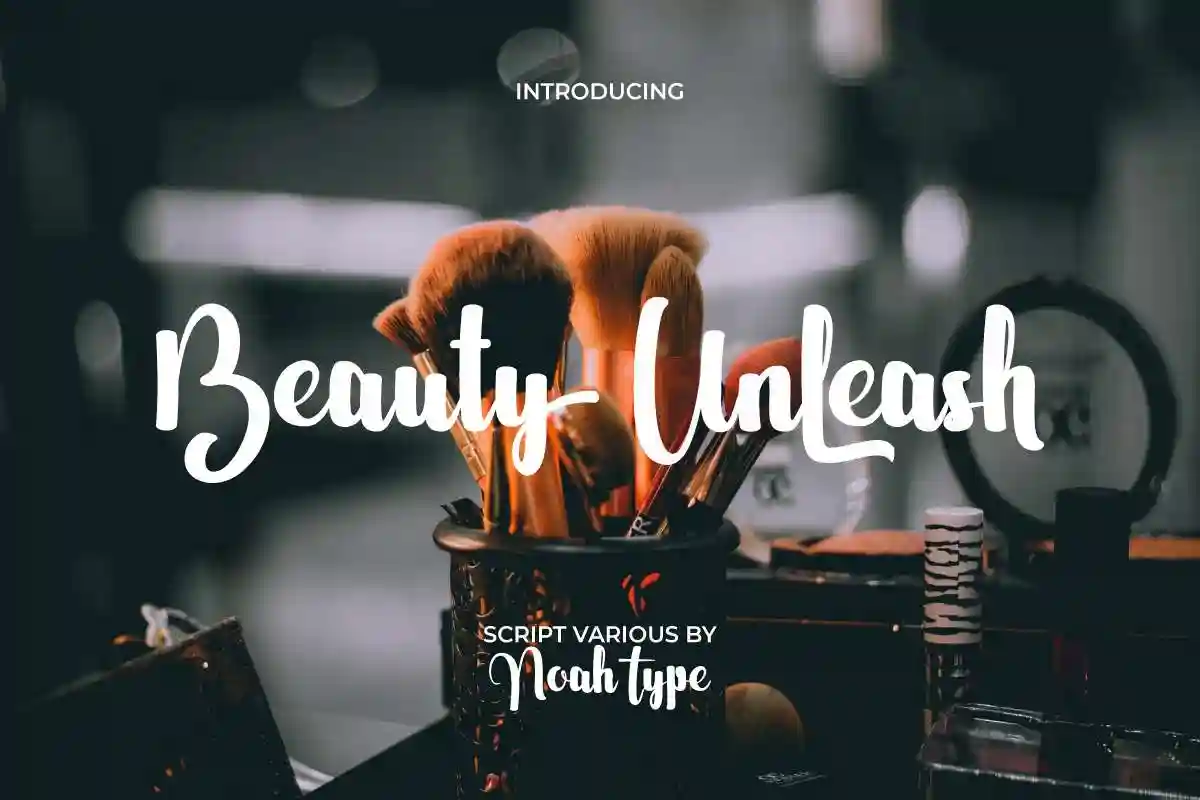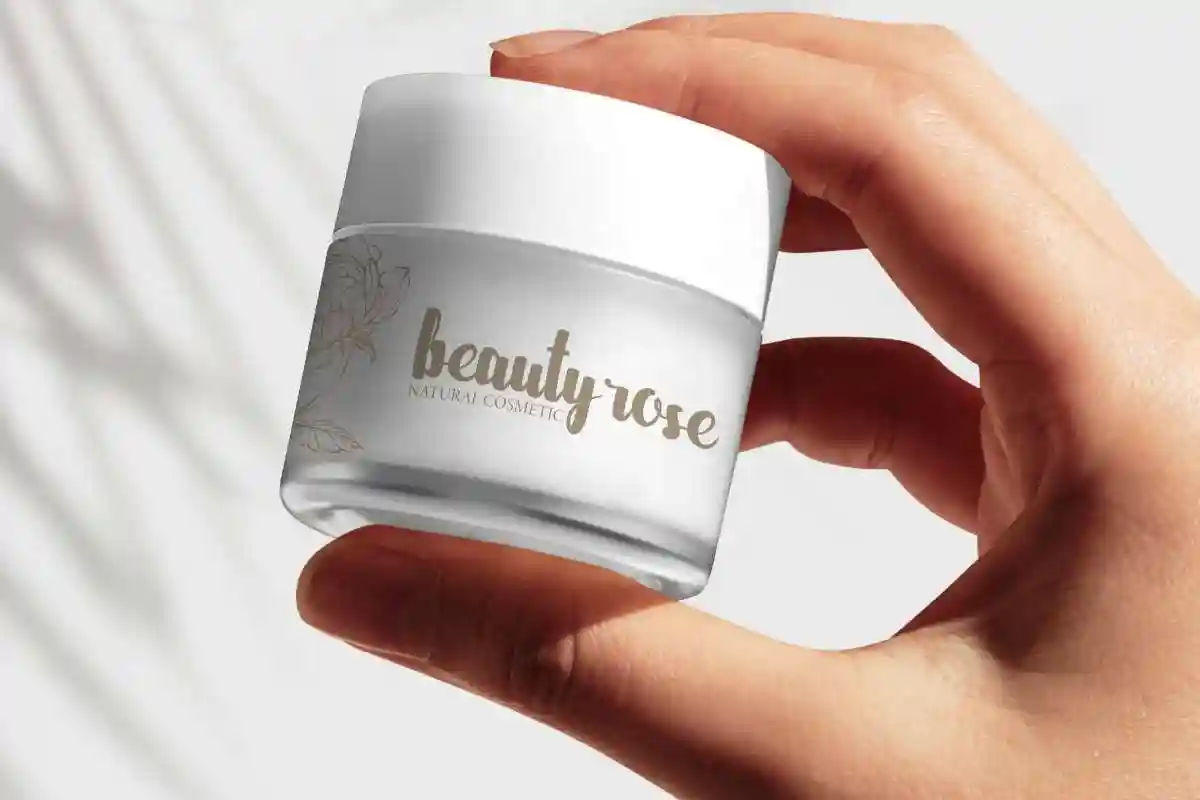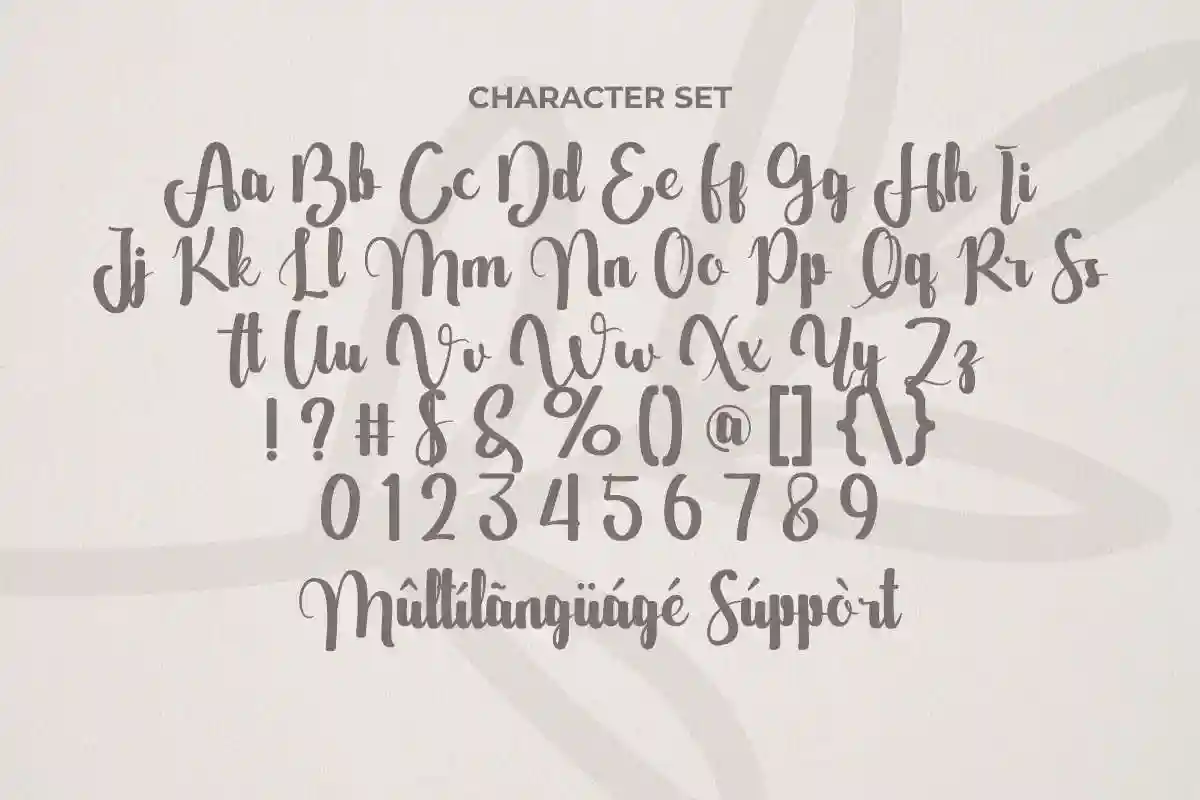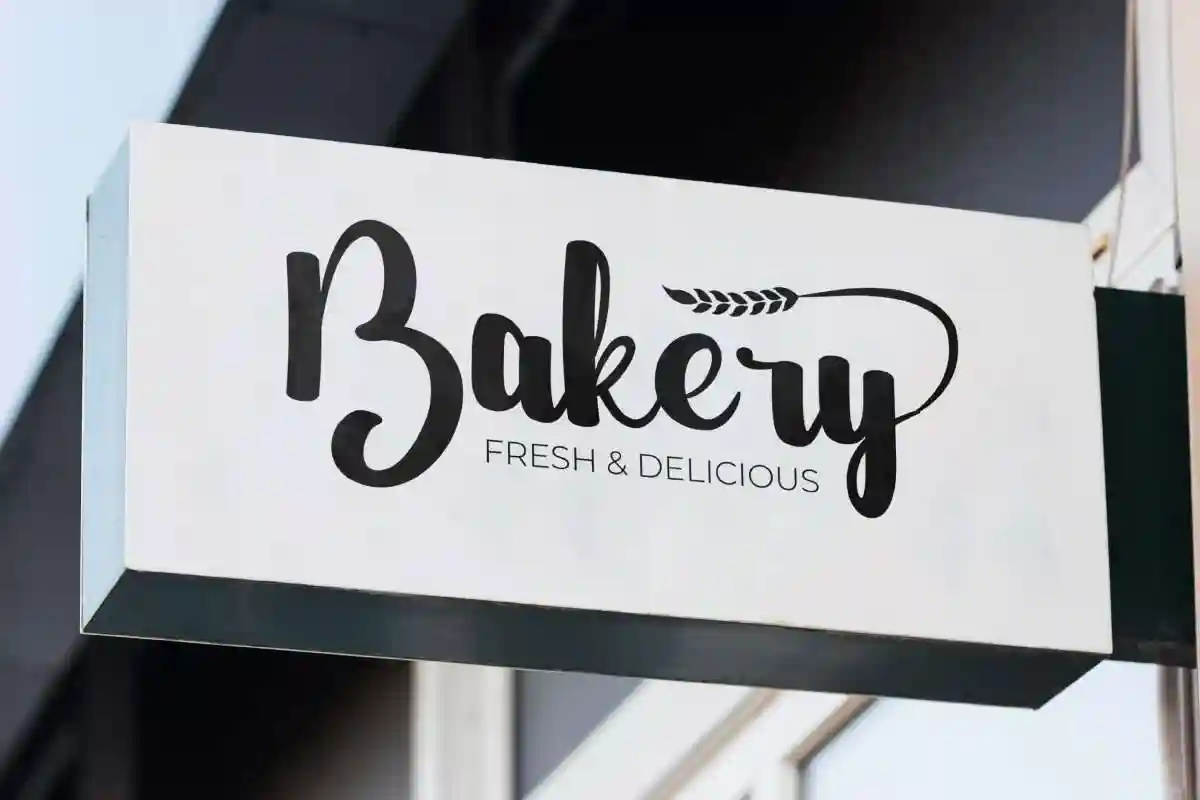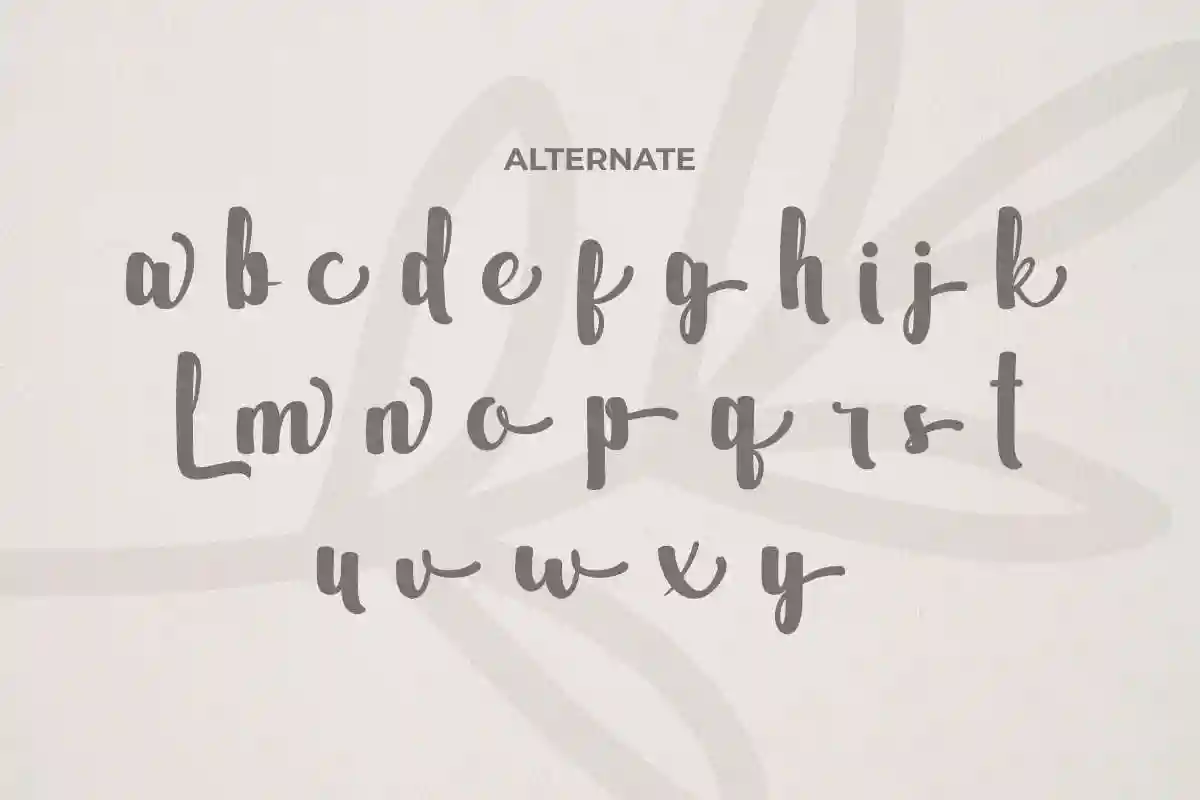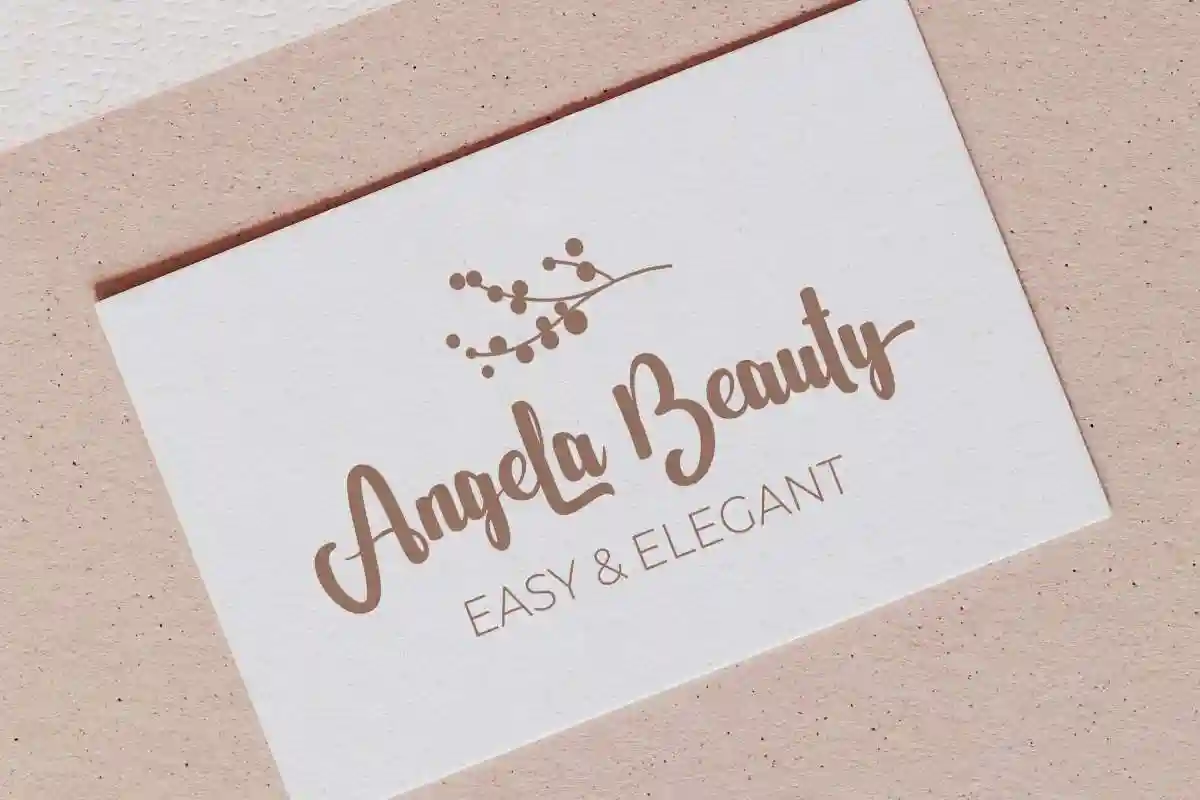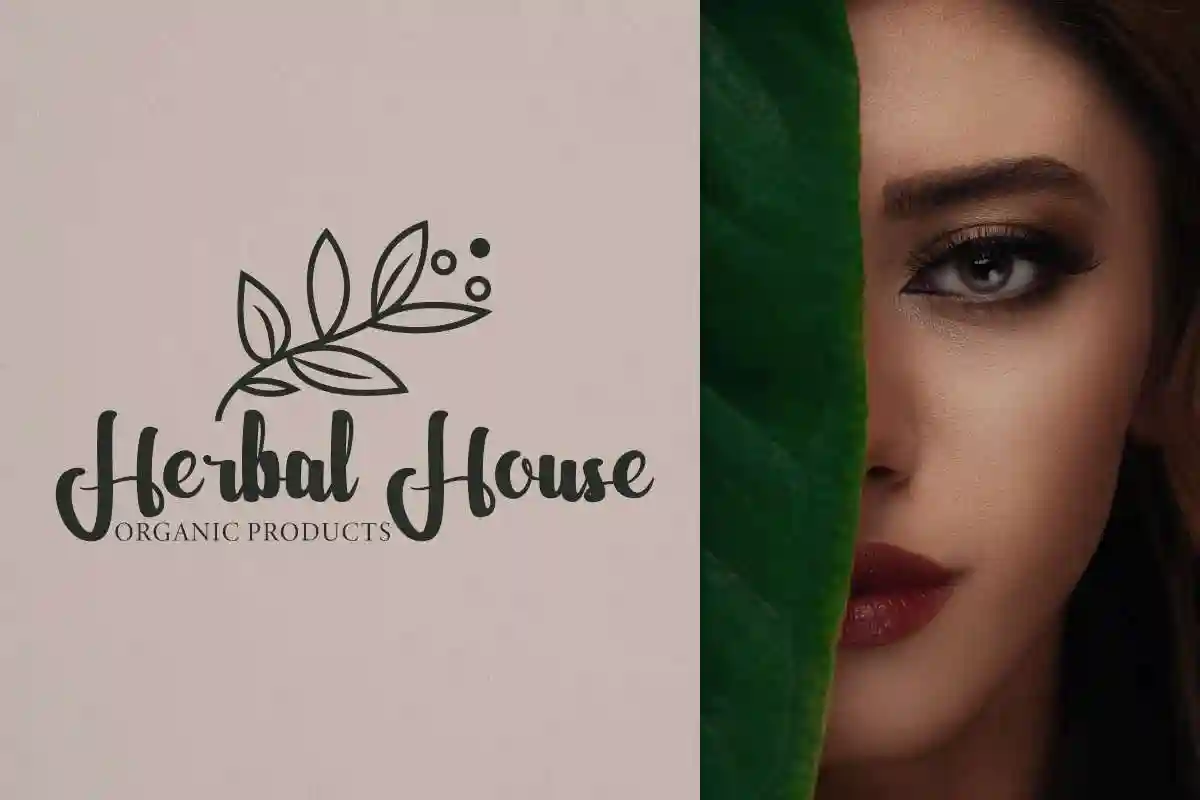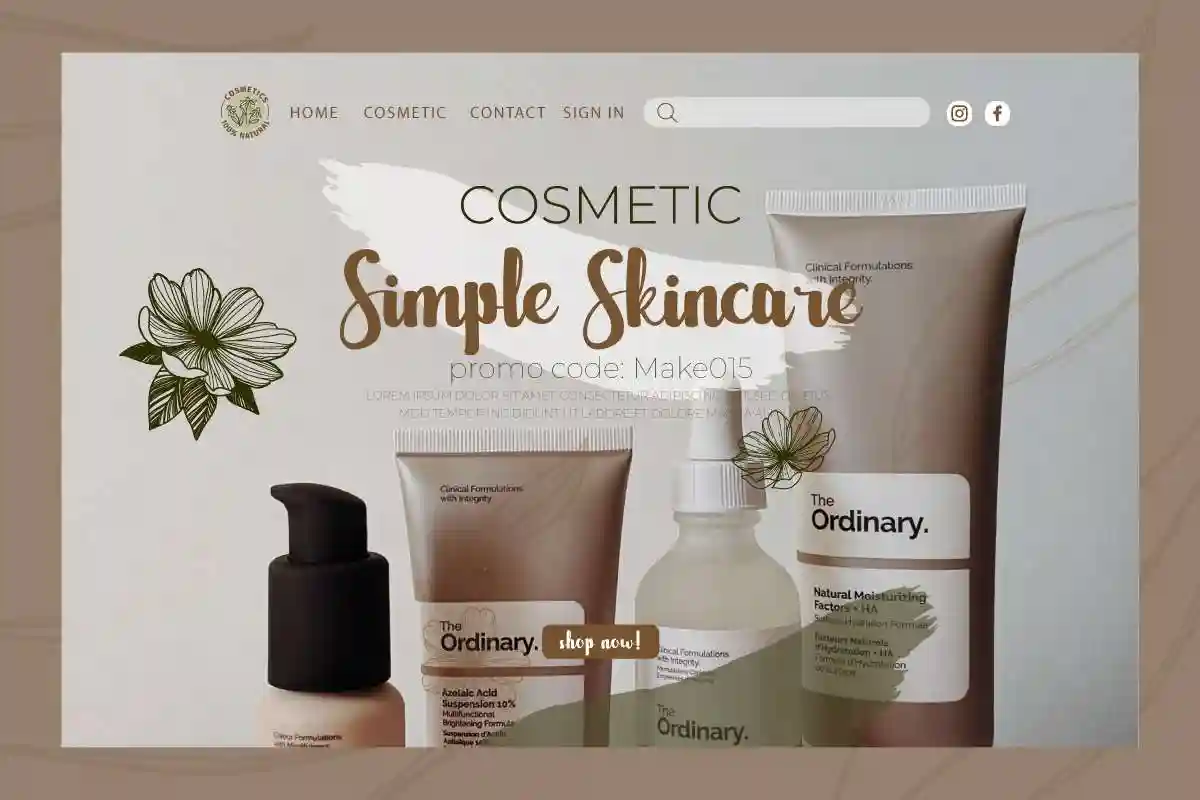
Beauty Unleash Font is a beautiful brush script inspired natural handwritten font made by NoahType. This font will add a personal handwriting look twist to any design project. This font is crafted carefully in every its single scratch, created to look as close to a natural handwritten script so that it can create the perfect combination on each glyph. When we make this font, we really want to create a touch that is so free-flowing that it gives a natural impression on its use later. This brush font is for anyone who needs a beauty script style for their designs.
This brush font will be awesome for bakery, fashion, florist, products packaging, skincare etc.Whether you’re designing a logo, branding kit, wedding invitation, social media post, or product packaging, Beauty Unleash is your go-to font for creating a timeless impression.
Elegant and stylish design
Enhances your brand identity with a handwritten, premium feel
Beauty Unleash Font includes full set of Uppercase and Lowercase Basic Characters, Numerals and Punctuation. Perfectly make natural writing look that add more beautiful and aesthetic fonts to perfect your extraordinary project. Beauty Unleash will be awesome for logotype, lettering, products packaging, signage, stationery, title etc